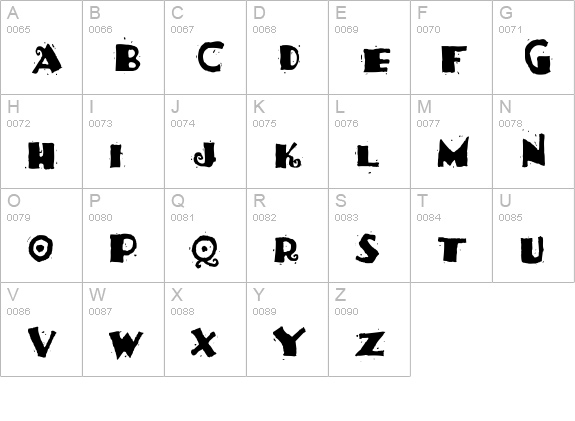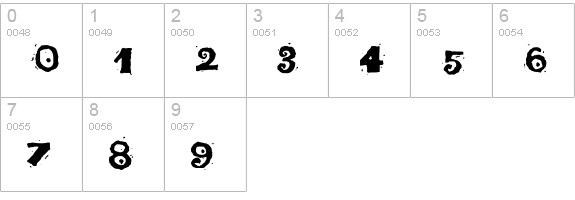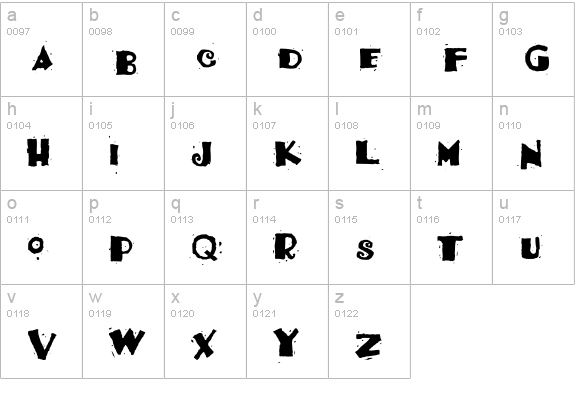
HotTamale Font Details
HotTamale font is a vibrant and spicy typeface that adds a touch of zest to any design project. With its bold and energetic appearance, HotTamale brings a fiery flair to headlines, posters, and branding materials. This font features a unique blend of sharp angles and playful curves, creating a dynamic visual impact that truly stands out. The best part? HotTamale font is completely free to download at FontsMarket.com. Whether you're looking to add some heat to your designs or simply want to experiment with a fresh new font, HotTamale is the perfect choice. Embrace the bold and sizzling style of HotTamale font today and let your creativity sizzle!